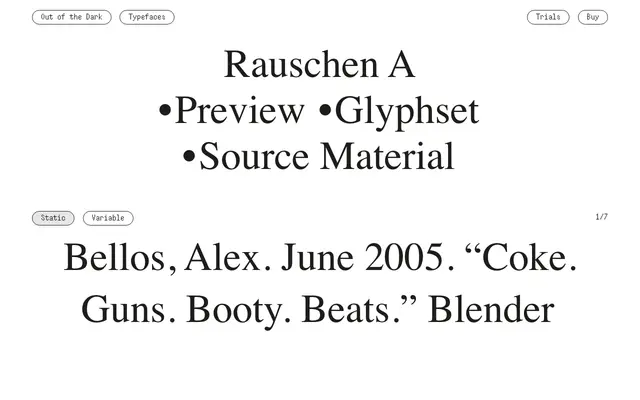
Rauschen A
A six-weight grotesque from Swiss foundry Out of the Dark, available as static styles and a variable font across 12 styles including italics.
Rauschen A offers six weights from Regular to Black, each with a matching italic, totalling 12 static styles alongside a variable font version. It sits within Out of the Dark's broader Rauschen family, which includes Rauschen B and Rauschen Max as related releases. The source material cited on the page, a 2005 Blender magazine article, hints at a vernacular or subcultural design reference underpinning the family.
The family's structure, with a range of weights, italics, and a variable font, suggests a contemporary grotesque or humanist sans intended for versatile text and display use.